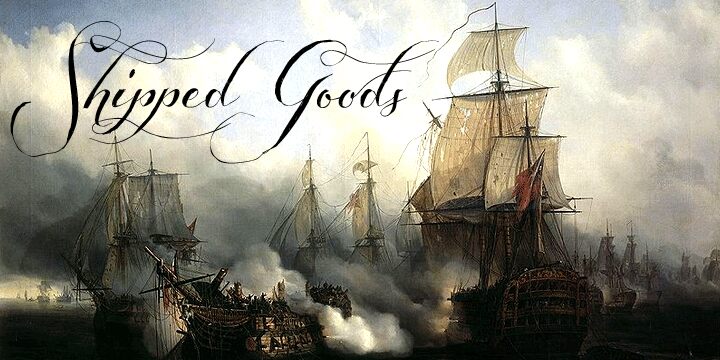
Shipped Goods 1 by Måns Grebäck is a free calligraphic script with sweeping capitals and exceptionally long flourishes. Its sharp changes from broad strokes to hairline curves give the lettering a formal, theatrical character. Many strokes travel far beyond the letters.
The curling linework can echo ribbon, botanical stems, or ornamental borders in wedding invitations and event posters. On luxury packaging and fashion editorials, the dramatic sweep suits names and feature phrases meant to feel ceremonial or romantic. The extended strokes can become part of an illustrated frame or decorative emblem rather than serving as neutral text.